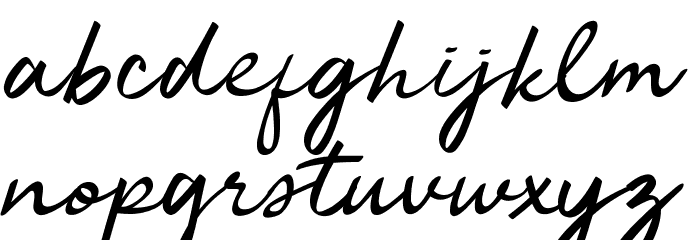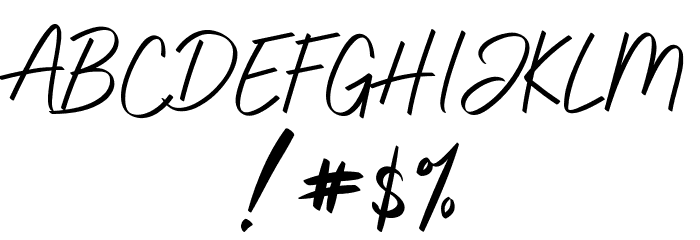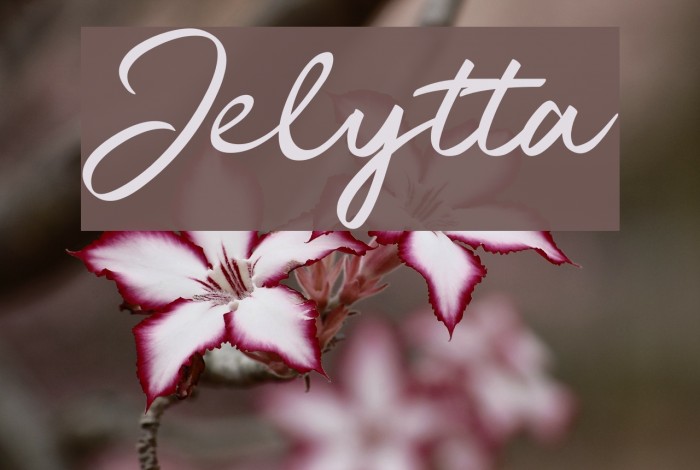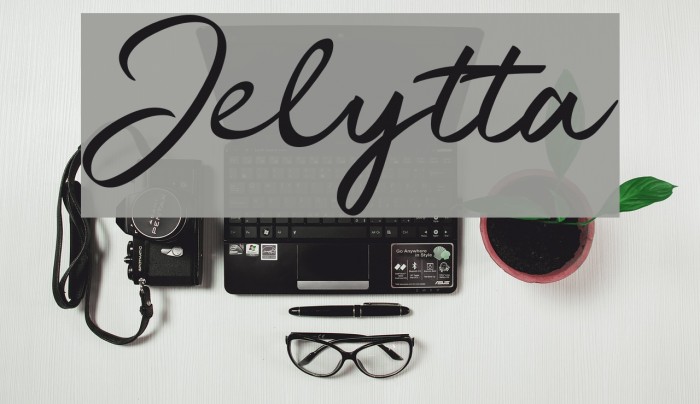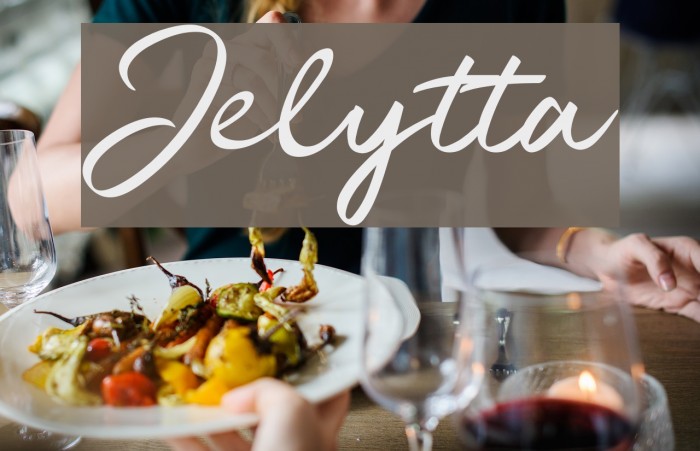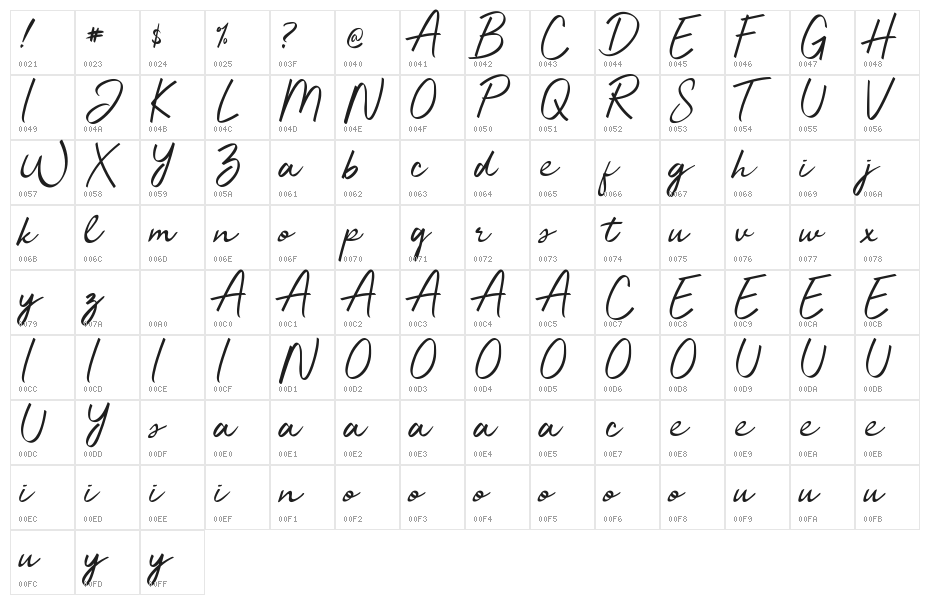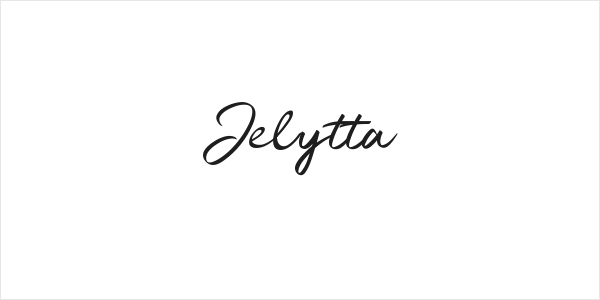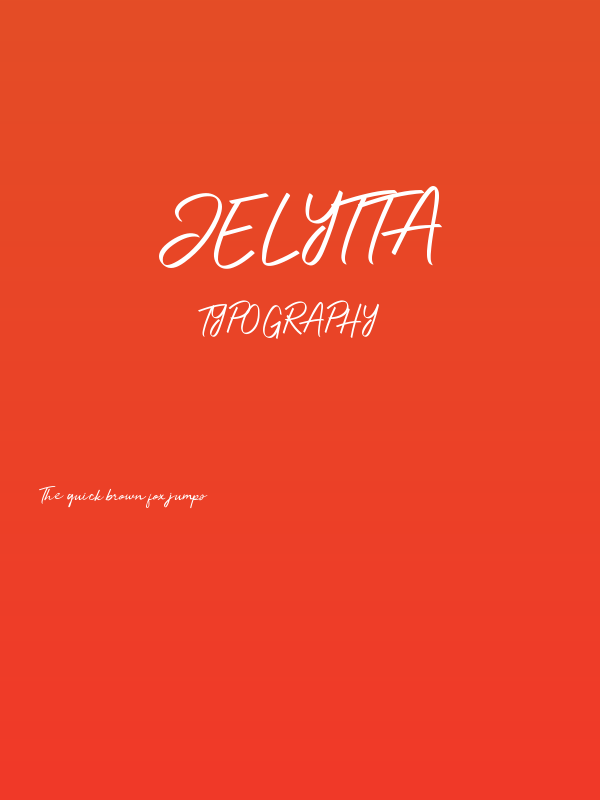
Jelytta Font
This font exudes a lively and expressive character with its fluid, cursive style. The strokes are smooth and connected, giving it a handwritten appearance that is both elegant and casual. The uppercase letters are slightly more upright, while the lowercase letters maintain a consistent flow, enhancing readability. The font's playful nature is highlighted by its dynamic curves and loops, making it suitable for creative and informal applications. The special characters are integrated seamlessly, maintaining the overall aesthetic. This font is perfect for projects that require a personal touch, such as invitations, greeting cards, or branding materials.
A lively, cursive font with a handwritten, elegant style.
- Proposed Projects: Ideal for invitations, greeting cards, branding, and creative projects.